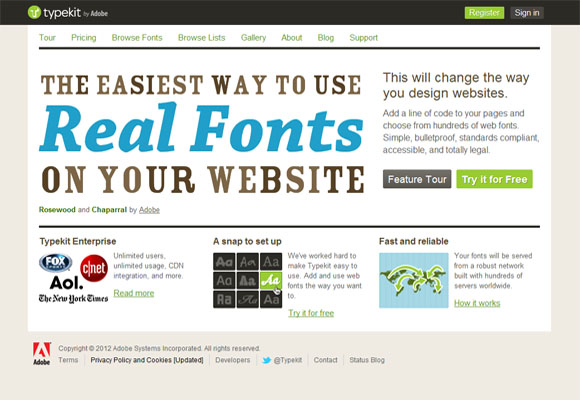
Quick Tip: Always Generate Web-Safe Fonts When Using @font-face
One of the biggest mistakes I see with people just getting introduced to the CSS3 @font-face selector is the use of regular OTF or TTF fonts in their web pages, instead of the recommended WOFF (Web Open Font Format) and EOT (Embeddable OpenType) font formats. With traditional font formats (TTF, OTF), the primary use was for print and applications that created such documents. There were no worries about compatibility across different browsers like there are when creating websites.
Now with the large adoption of @font-face, web designers and developers have to worry about each browser viewers of their website could be using, and making sure that each font displays as it should be. This was a problem when I was redesigning my own website, http://keenanpayne.com, where you can see I used fonts not only on every page, but excessively on the homepage to create the exact feeling that I wanted without using images.
Please note that not all websites will display fonts the same way. Some browsers will display regular TTF and OTF fonts just fine, while others will give them jagged edges and make them rather unappealing. Below is an example of a website using just the TTF format of the League Gothic font viewed in Google Chrome.
Incorrect Font Face
As you can see, when you scale the font size up, you can clearly see all of the imperfections that appear as a result of just using the TTF. Below we have included the TTF, EOT, WOFF, and SVG version of the same font viewed in Google Chrome.
Correct Font Face
When comparing the two images, it’s hard to believe that we are even using the same font. The latter image is clear, perfectly displayed edges, and can be scaled to whatever size without any lost quality. Now let’s compare the two web pages code and see what we did differently.
The Solution
The solution to imperfect web fonts, or being stuck with TTF or OTF files is very simple. If you have read the license agreement to the font that you want to use and are sure you can use it with @font-face, then there are plenty of online resources that will take a regular font file, and give you a web font package with every format you’ll need to make sure it displays correctly across various browsers. Here are a few of my favorite tools to do this:
Font Squirrel @font-face Generator
The Font Squirrel @font-face generator is my favorite of all the tools. It is simple to use, generates web-safe fonts to use, and even packages in the CSS file with everything that you’ll need so you don’t even have to type any code. If you know what you’re doing it has a plethora of options including the ability to remove kerning, resize the font’s x-height, custom subsetting, and much more. It does have a list of fonts that cannot be generated so don’t go trying to get your web font version of Helvetica now.
Typekit
Perhaps the most successful tool to come out of the @font-face adoption would be Typekit. Typekit allows you to browse their gallery of fonts, and embed them in your own website. The trick to doing this is they give you a snippet of JavaScript that you put into whatever web page you want the fonts on, and then you can pick out the font that you want.
Once you have picked out your font, all you have to do is type in what selectors you want it to display for (H1, classes, ID’s, etc) and then click “Publish”, and that bit of JavaScript that you inserted below will allow Typekit to override your CSS. It’s a simple and effective way to embed fonts, and is much simpler than having to store all of the fonts that you want to use, and have that ever-growing CSS file that needs editing.
The one caveat with Typekit is that it is a paid service. There is a free option, but it only allows for 25,000 page views per month, and will allow you to embed up to two fonts on one website. It will allow you to see what the service has to offer, but if you want to step up to even two websites, you’re looking at $24.99/year. Want more than two websites? That’s $49.99/year.
Conclusion
Both are great services for generating web-safe fonts, and I would definitely recommend Typekit if your budget allows, but I would recommend either to make sure your web designs look brilliant across all browsers no matter what.
Note: As web browsers upgrade I am sure that they will be able to handle regular OTF and TTF files and display them as they would WOFF, EOT or SVG, but this article displays best practices when using the @font-face, and should be followed even when that is the case.